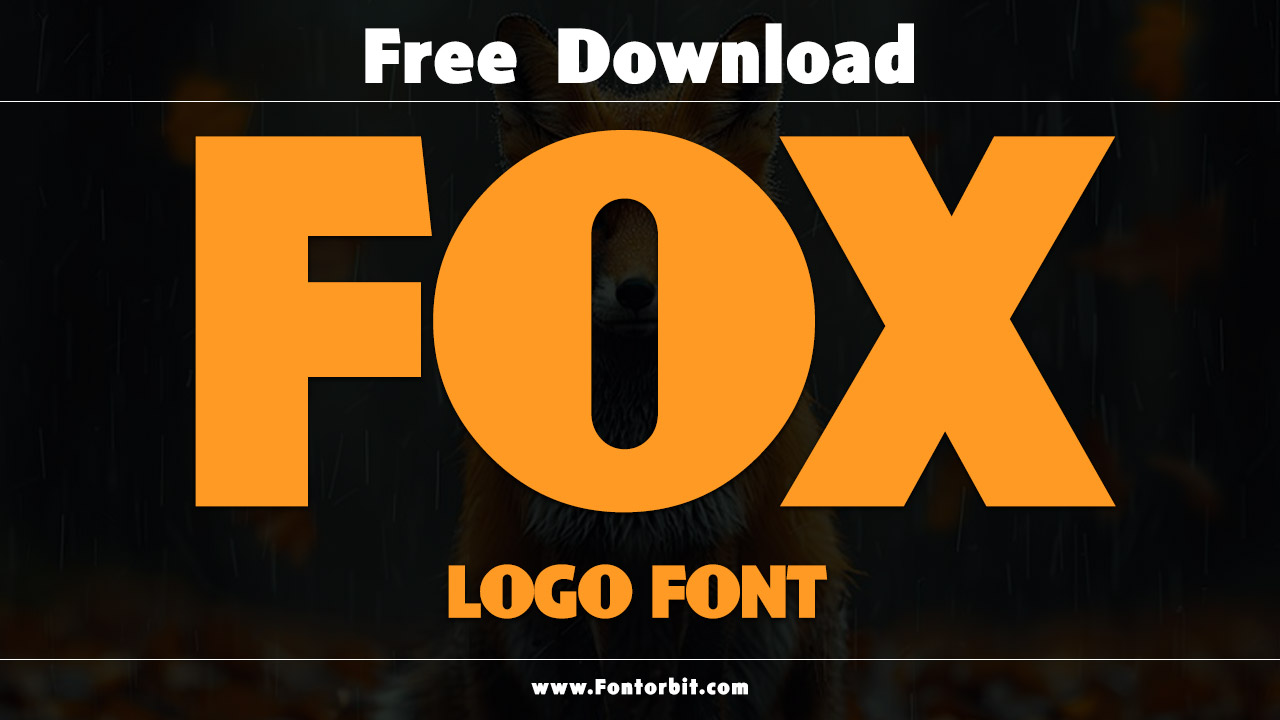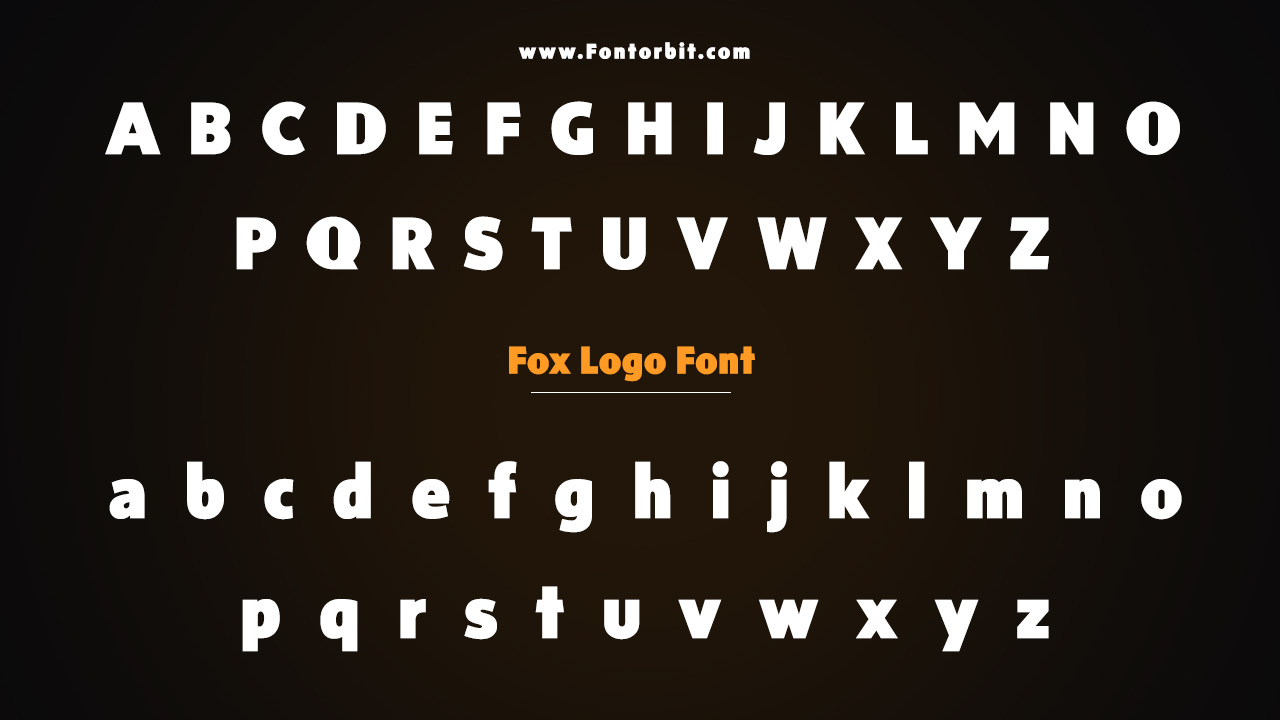
Fox News, known for its bold and recognizable branding, uses the Futura Bold font in its logo. Futura, a widely recognized sans-serif typeface, was designed by Paul Renner in 1927 and is considered a classic in modern typography. The font is known for its clean, geometric design, making it a versatile choice across various mediums.
Futura Bold is part of the Futura font family, which is known for its modern, minimalist design. Below are the variants included in the Futura family:
- Futura Bold
- Futura Medium
- Futura Oblique
Notable Uses Of Futura Bold
Futura Bold has become synonymous with major brands and media channels worldwide. Its application in the Fox News logo solidifies its place in the corporate and media landscape. It’s also notably used in:
- RAI, the Italian public broadcasting agency.
- Italian railway system for signage.
- Films such as 2001: A Space Odyssey and American Beauty.
The geometric and balanced look of Futura Bold makes it ideal for brands that want to exude modernity, trustworthiness, and professionalism.
Futura Bold is highly adaptable and can be used across various platforms. Here are some recommended uses:
- Corporate logos
- Video titles
- Print media
If you’re looking for alternatives to Futura Bold, here are some free font options that offer a similar feel:
- Dirty Harry
- Murisa BabyFish
- Seventies Sunrise Trial
- Angel Club
- Clovedoper
- Amsi Pro Narw Ultra
These fonts provide the same modern, geometric feel as Futura Bold and are widely available for free download.
Futura Bold is a versatile, timeless font that has been used in high-profile projects and brands, including Fox News. Its simple, modern design makes it suitable for various applications, from corporate branding to films and signage.
2.What Are The Key Characteristics Of Futura Bold?
Futura Bold is known for its geometric shapes, clean lines, and modern look.
3.Is Futura Used In Other Media Besides Fox News?
Yes, Futura is widely used in films, public signage, and other corporate logos.
4.Can Futura Bold Be Used For Website Design?
Yes, Futura Bold is excellent for headings and logos in web design.
5.Is There A Condensed Version Of Futura?
Yes, Futura has a Condensed variant.
6.What Is The Best Free Alternative To Futura Bold?
Montserrat Bold is a popular free alternative.